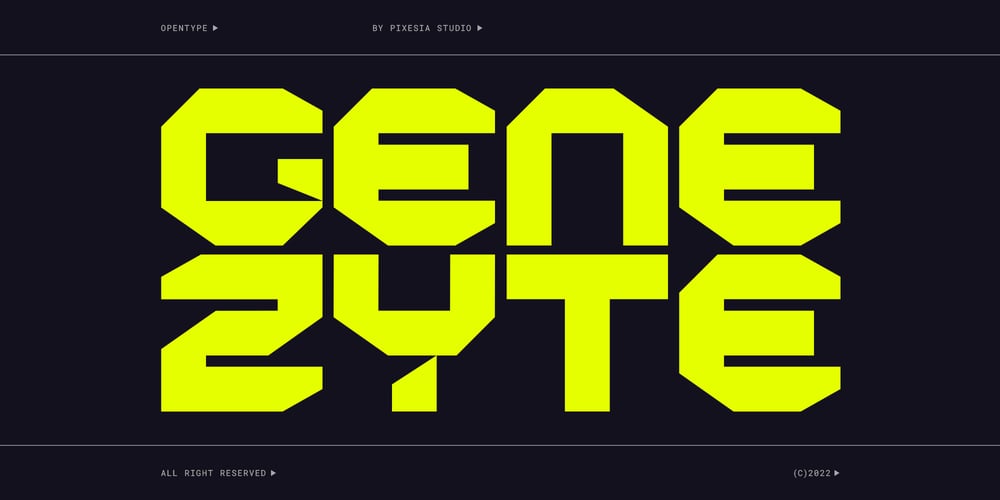
Genezyte Font Family was designed by Abul Almaududi and published by Pixesia Studio. Genezyte contains 1 styles and family package options. Introducing Genezyte – Monospaced Display FontGenezyte is a monospaced display font that is perfect for use in a variety of applications. Its clean, crisp lines and modern aesthetic make it ideal for use in headlines, titles, and body copy. The font’s monospaced nature ensures that your designs maintain a consistent look and feel, while its high legibility makes it suitable for use in small sizes. Genezyte’s bold, geometric forms give it a modern, futuristic feel, and its versatility allows it to be paired with other fonts and used in a range of color schemes. Whether you’re a designer, marketer, or UI designer, Genezyte is an excellent choice.FEATURES- All Caps- Numbering and Punctuations- Multilingual Support- Works on PC or Mac- Simple Installation- Support Adobe Illustrator, Adobe Photoshop, Adobe InDesign, also works on Microsoft WordHope you Like it.Thanks.